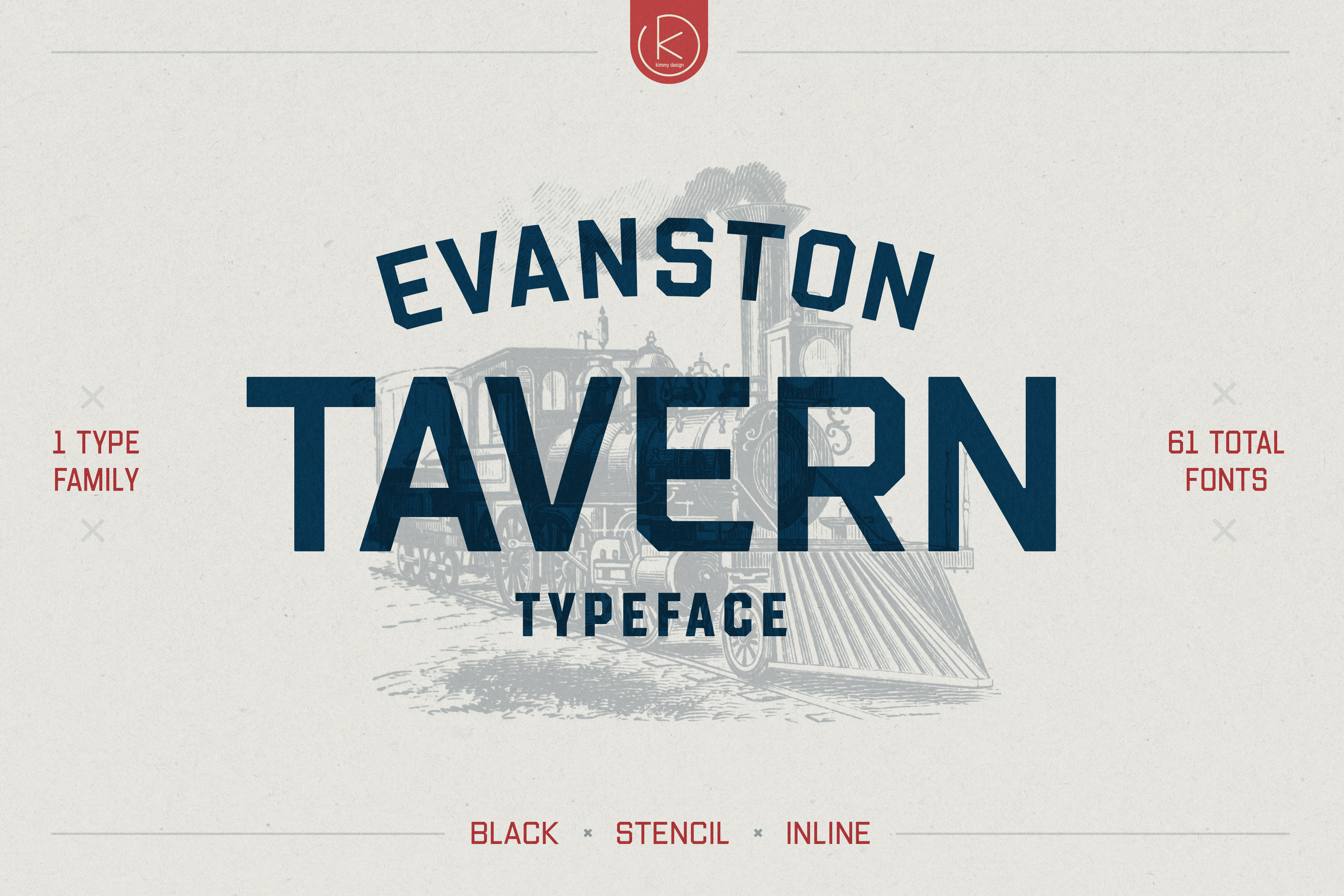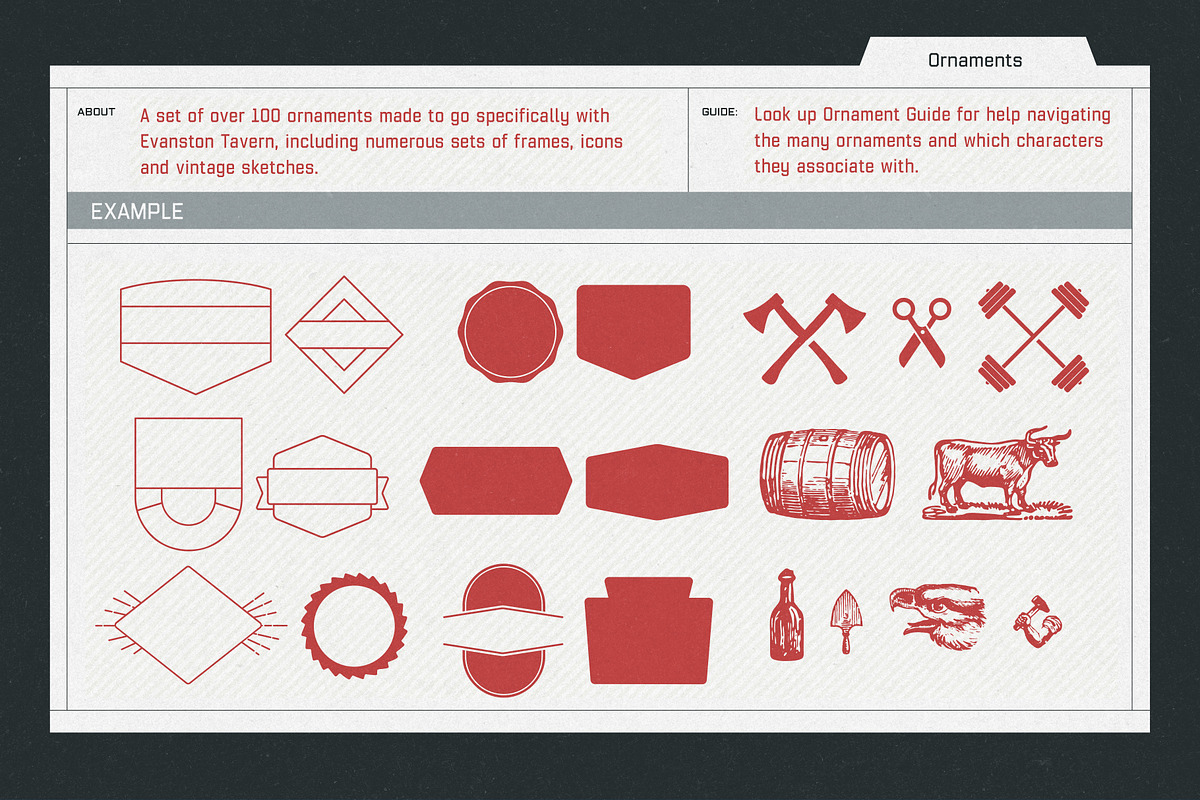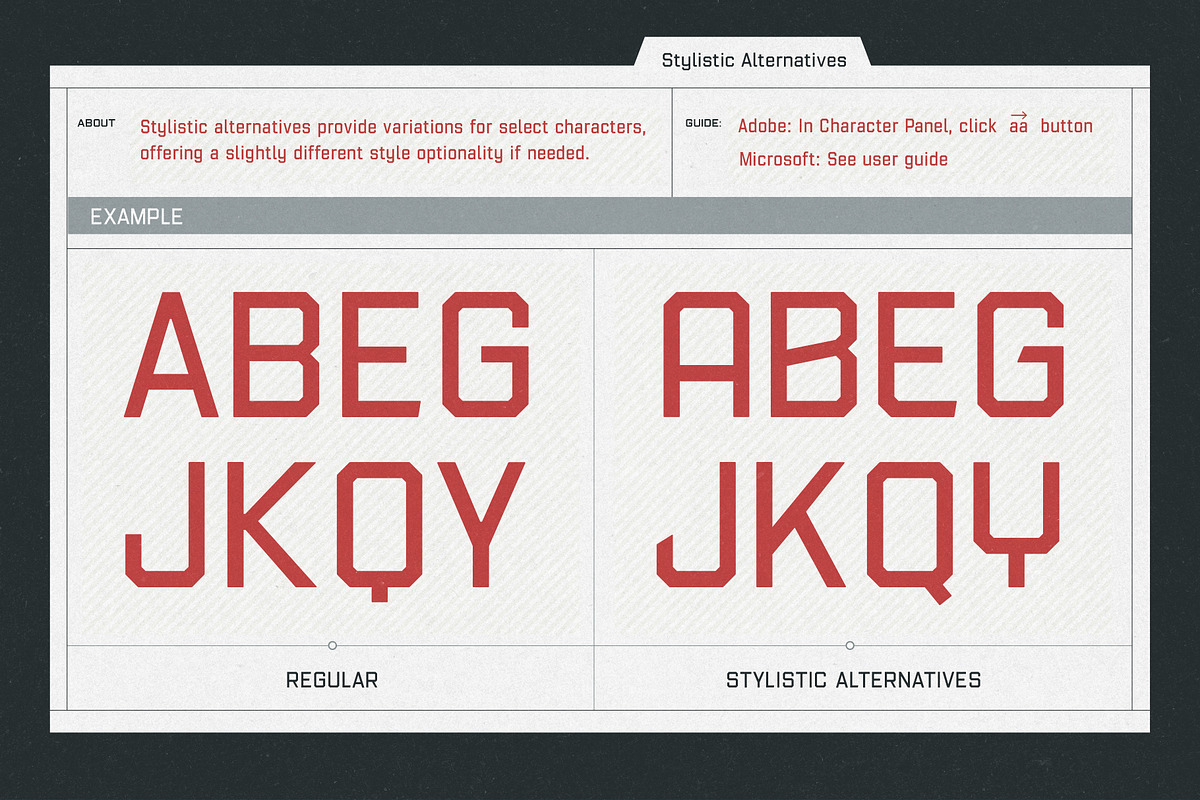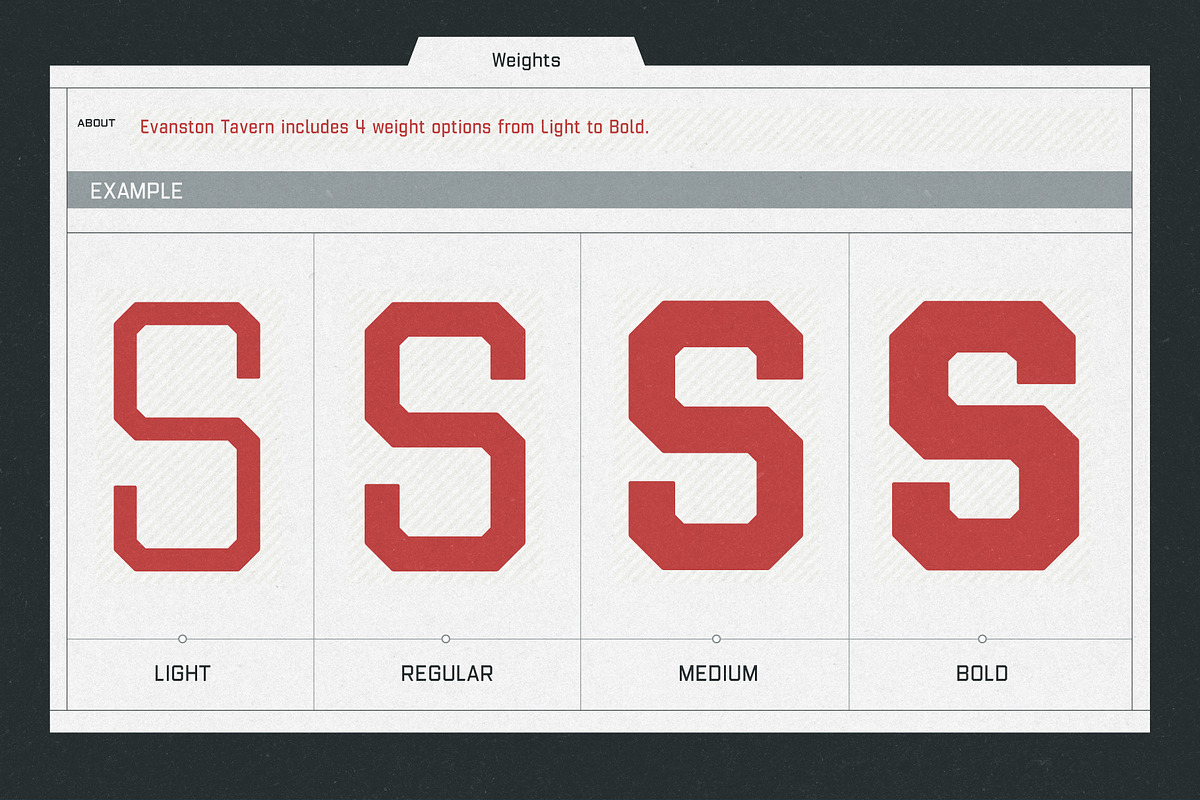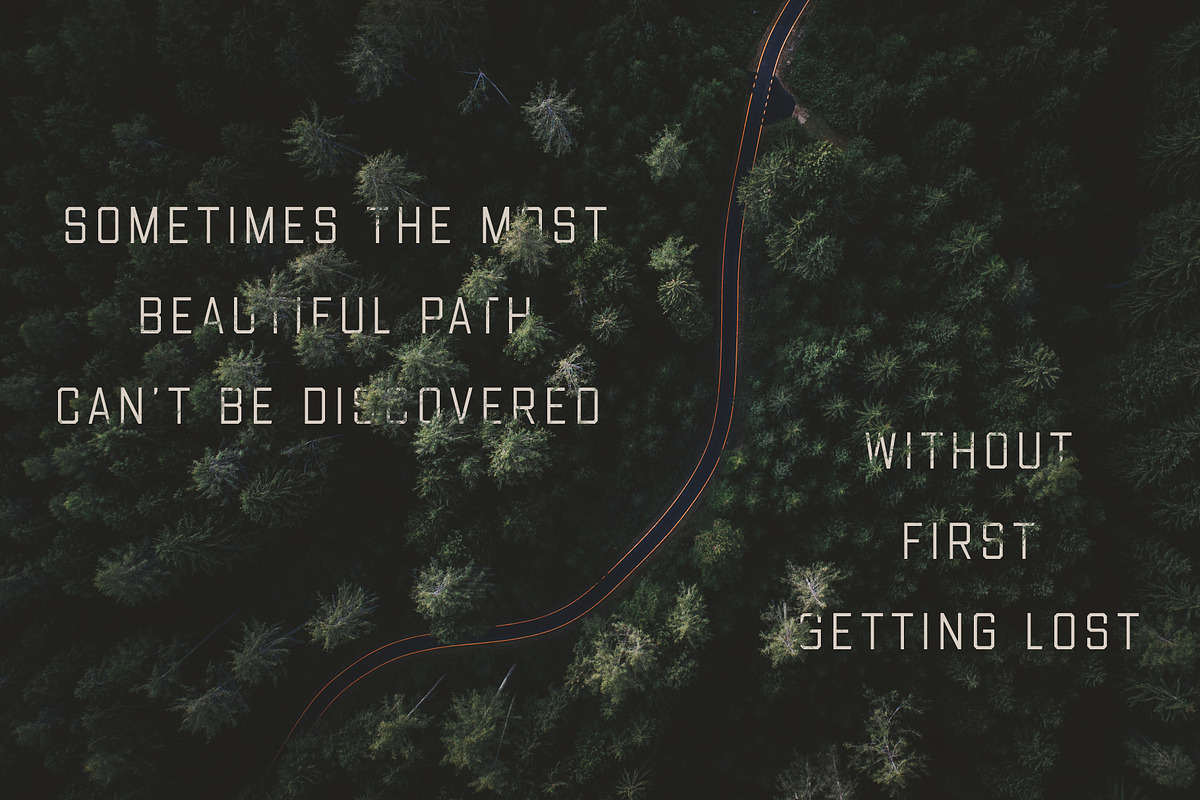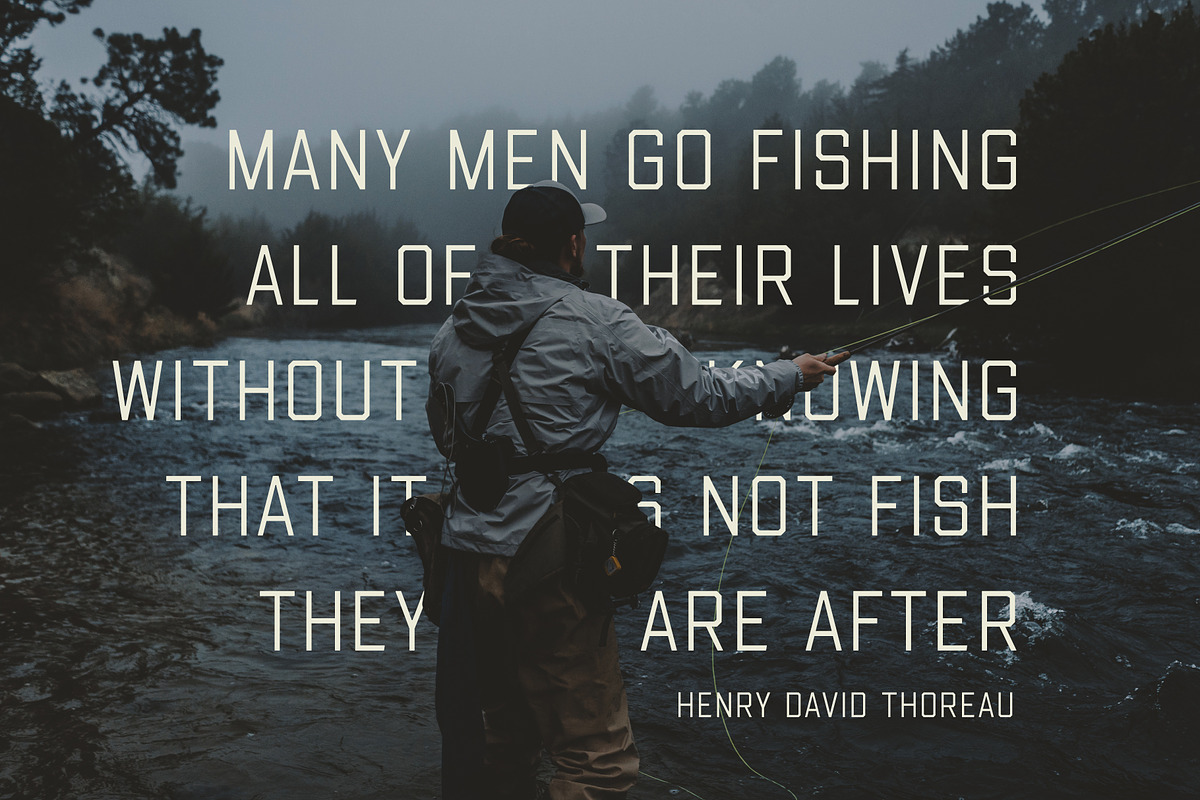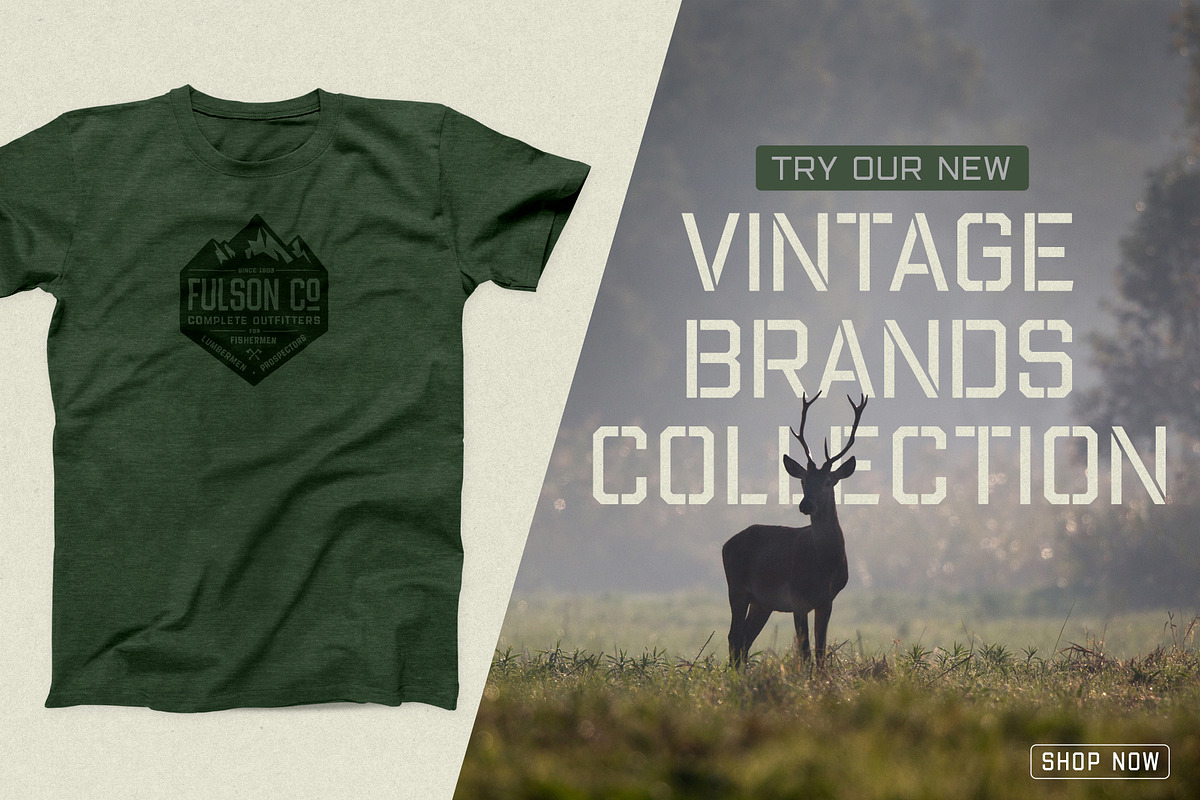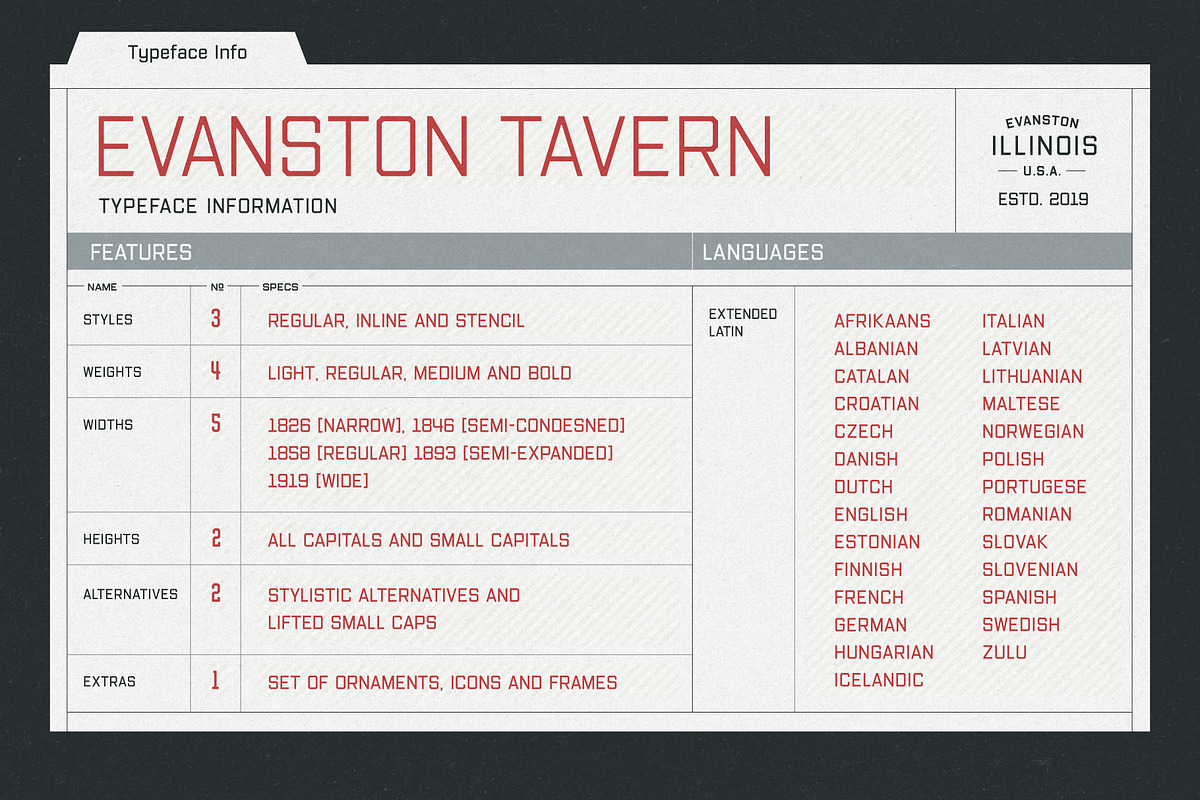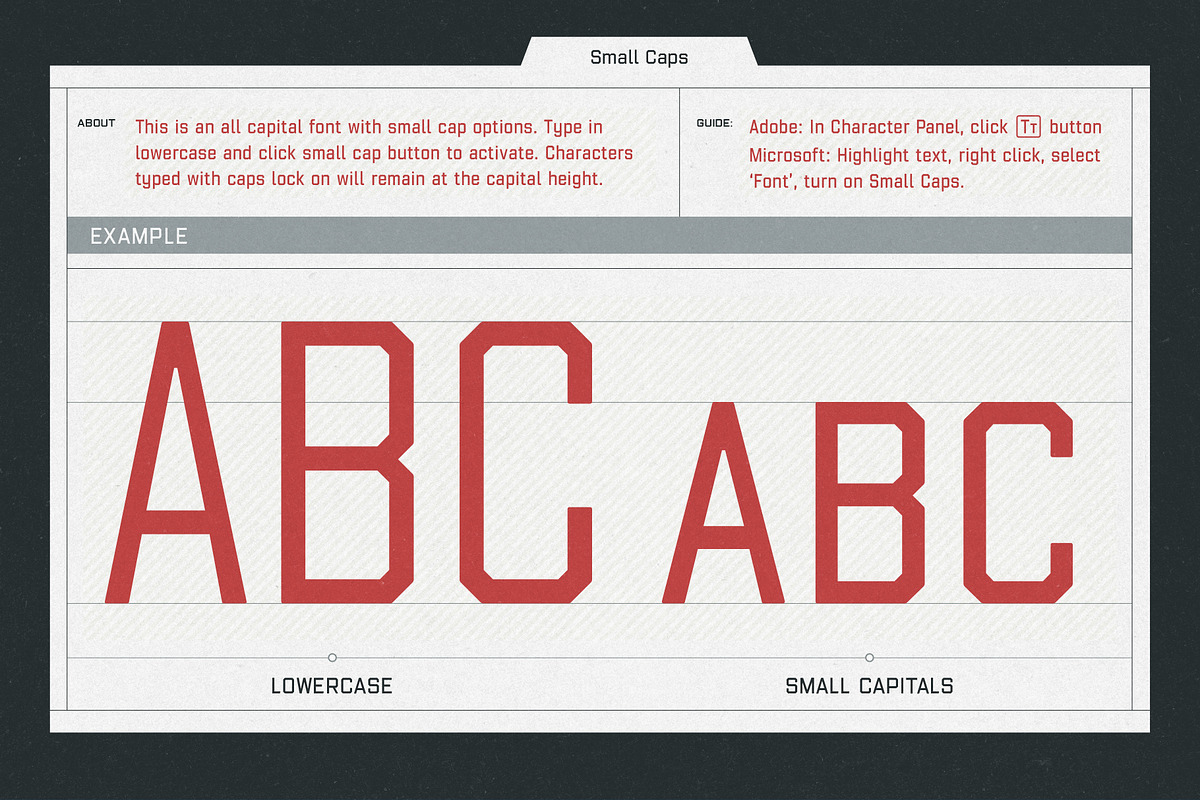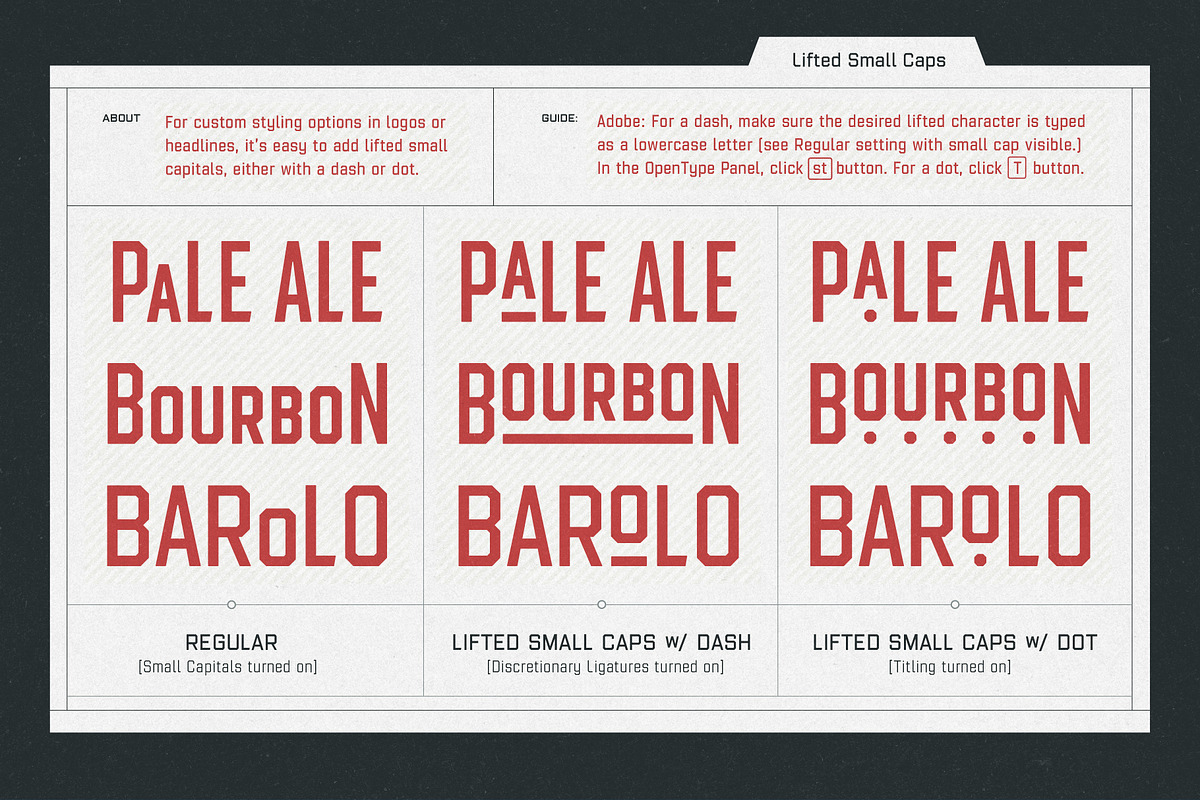
Evanston Tavern | 61 Font Family
Evanston Tavern is the refined sans-serif version to Evanston Alehouse. Inspired by the years that prefaced the ratification of the 18th amendment, this typeface mimics the signage commonly seen outside of saloons, taverns and alehouses.
Back to the modern era, Evanston Tavern is more than just a vintage inspired typeface. It works in modern and futuristic settings as a square sans-serif with multiple styles, opentype alternatives and ornamentation. The family provides a robust 61 total fonts, within it's 3 styles of regular, stencil and inline. Each sub family includes 4 weights as well as 5 widths. It has special features that add depth to the font, with discretionary ligatures and stylistic alternatives. It also includes a complimentary set of ornaments, including a vintage graphic set from the era, as well as modern frames, borders and icons.
Pair this font with Evanston Alehouse and have a great combination of serif and sans-serif square letterforms and a large array of ornaments!
- 3 Styles: Regular, Stencil and Inline
- 4 Weights: Light, Regular, Medium and Black
- 5 Widths: 1826 (condensed), 1846 ( narrow) 1858 (regular), 1893 (wide) and 1919 (expanded)
- 2 capital Heights: Capitals and small caps
- 2 Alternatives: Discretionary Ligatures and Stylistic Alternatives
- 1 Ornaments font with over 100 graphic extras